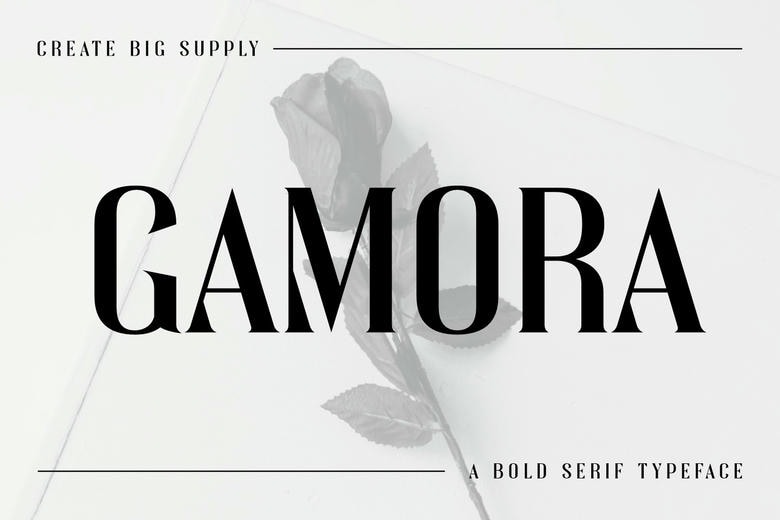
Gamora Serif Font
Gamora is a bold and expressive serif font with strong lines and striking character. Perfect for headlines, posters, and impactful logos, Gamora blends contemporary style with vintage charm, delivering versatility and visual appeal for dynamic designs.